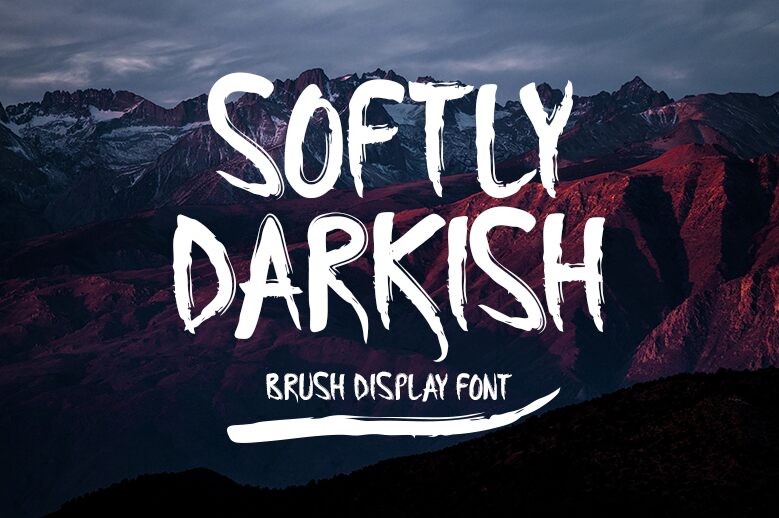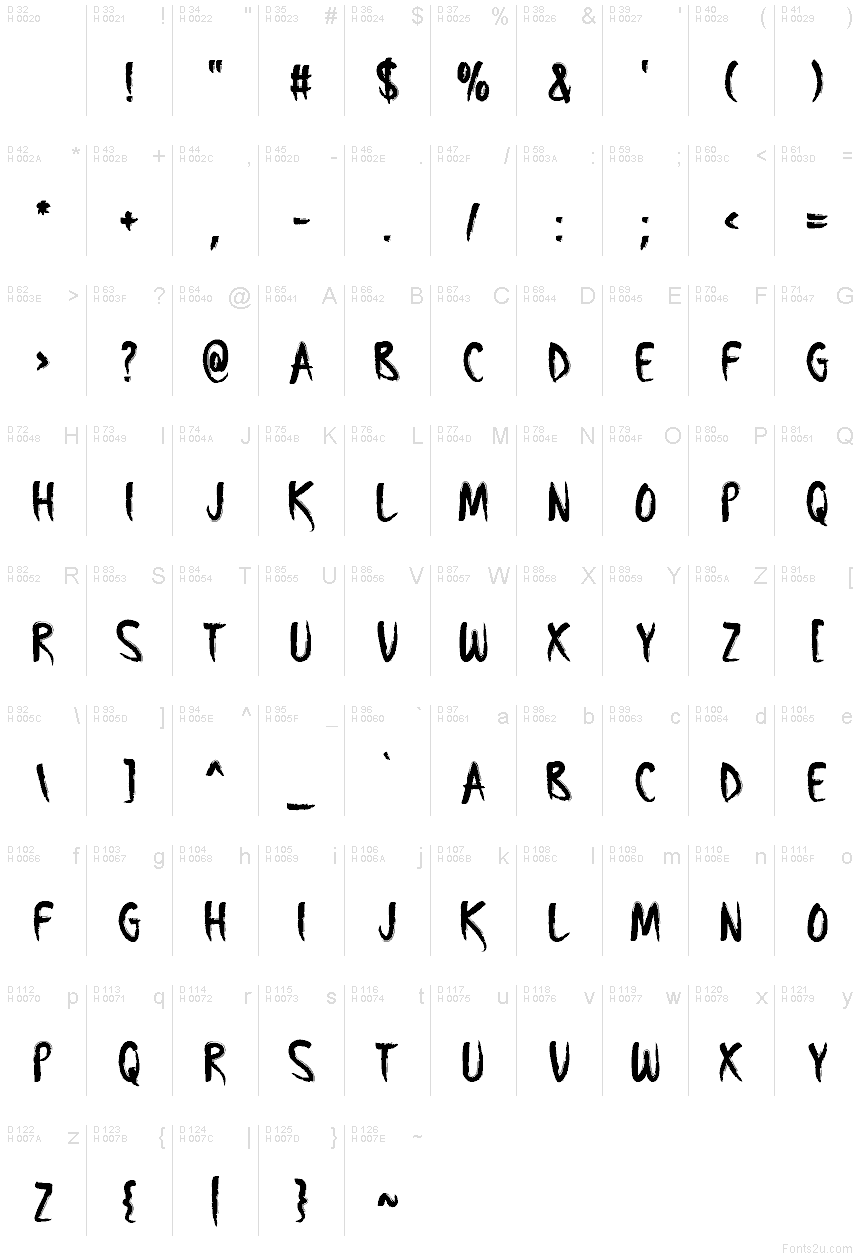
Softly Darkish
Softly Darkish font by Md Shohail Bhuian is a free rough brush display font. Its ink looks scratched on with a dry, frayed brush—strokes taper to thorny tips, with streaky texture that feels urgent and a little feral. Letters lean and lurch just enough to build tension while staying readable, giving you that haunted energy without losing clarity.
Using Softly Darkish, you can brand haunted attractions, Halloween posters, thriller book covers, escape room signage, horror podcast art, streetwear graphics, and gritty YouTube thumbnails. The spacing breathes between the chaos, so headlines hit hard at large sizes. Pair this free font with a simple condensed sans for body copy, and let the inky title do the scaring.